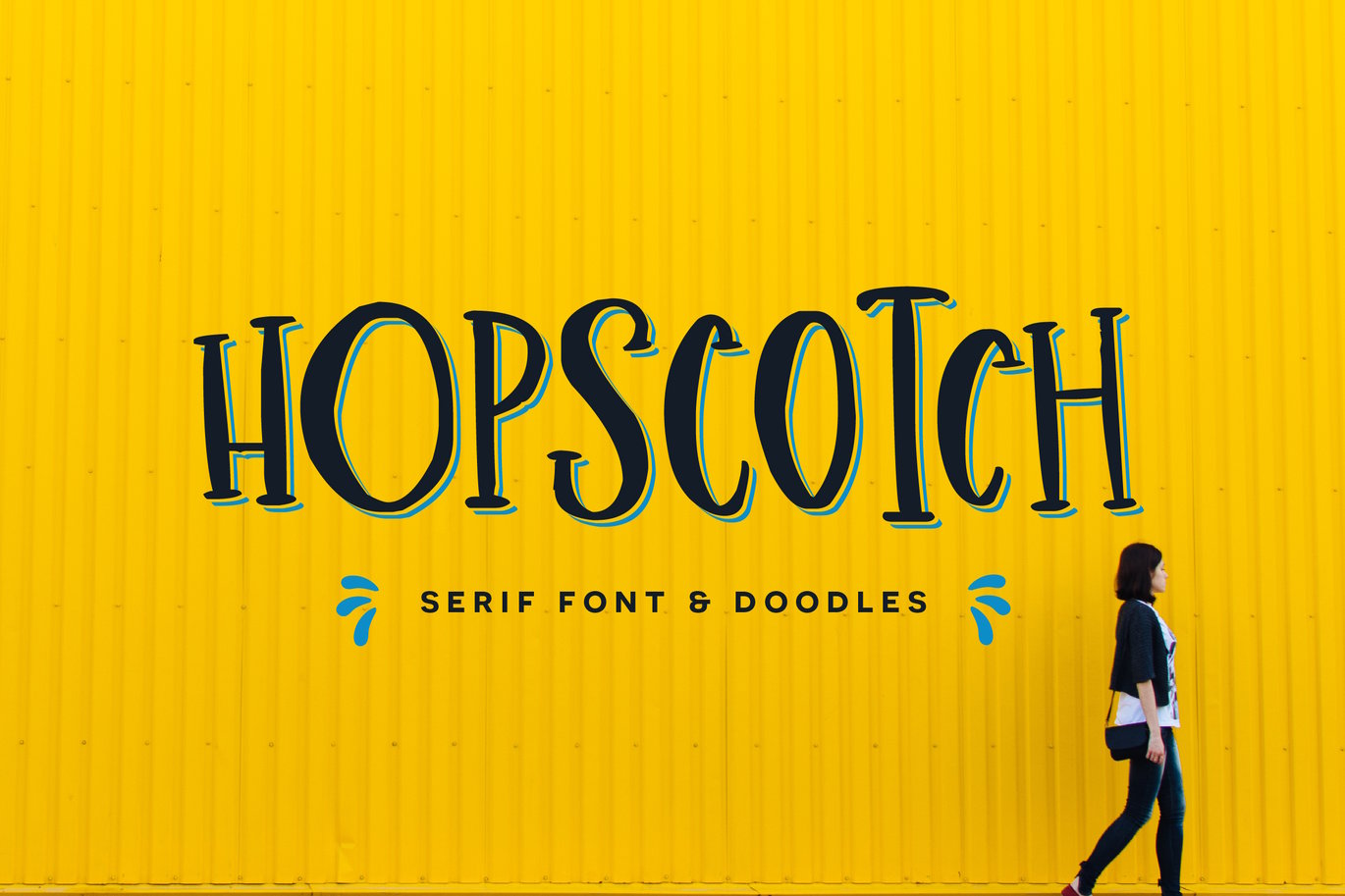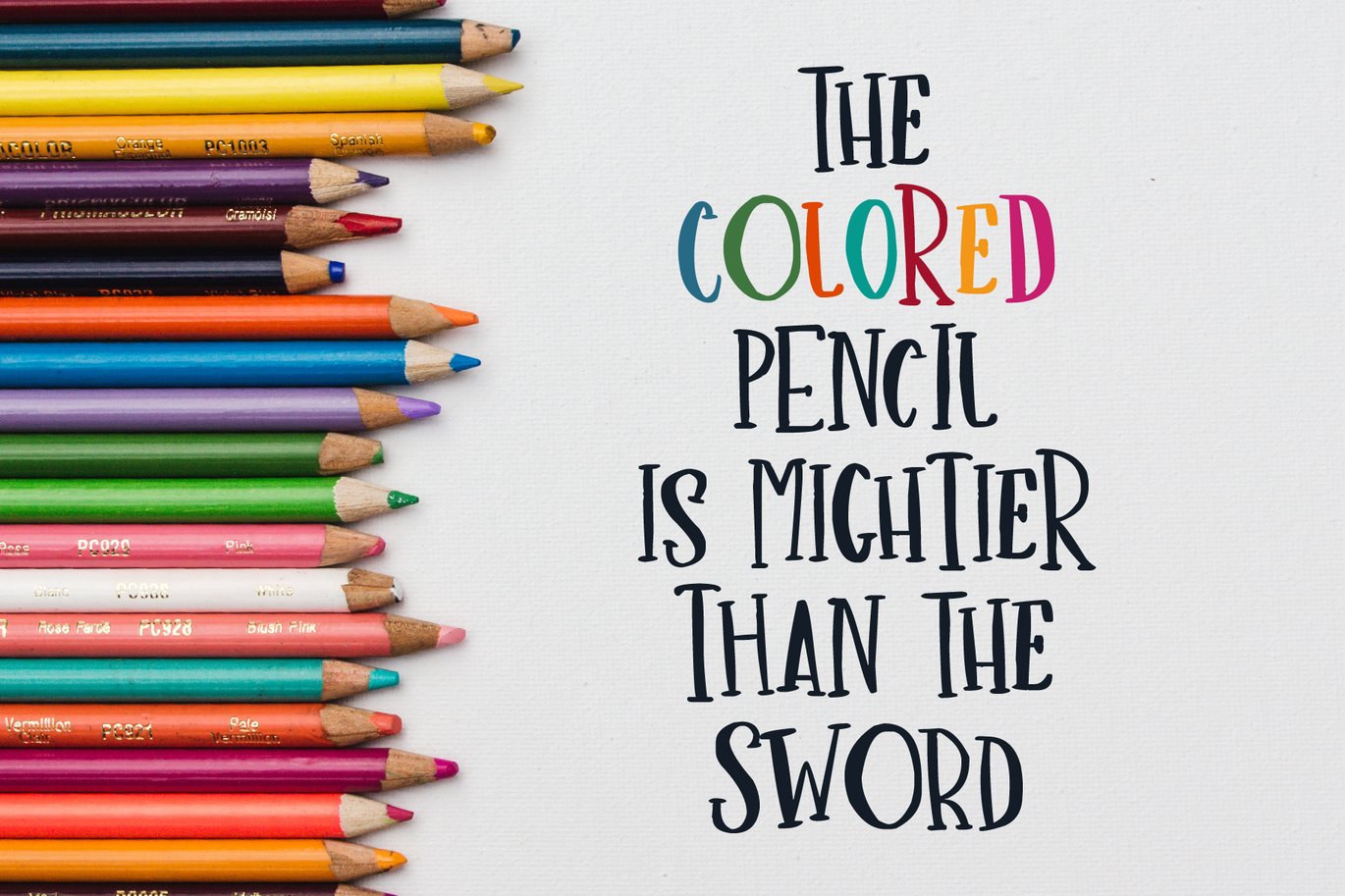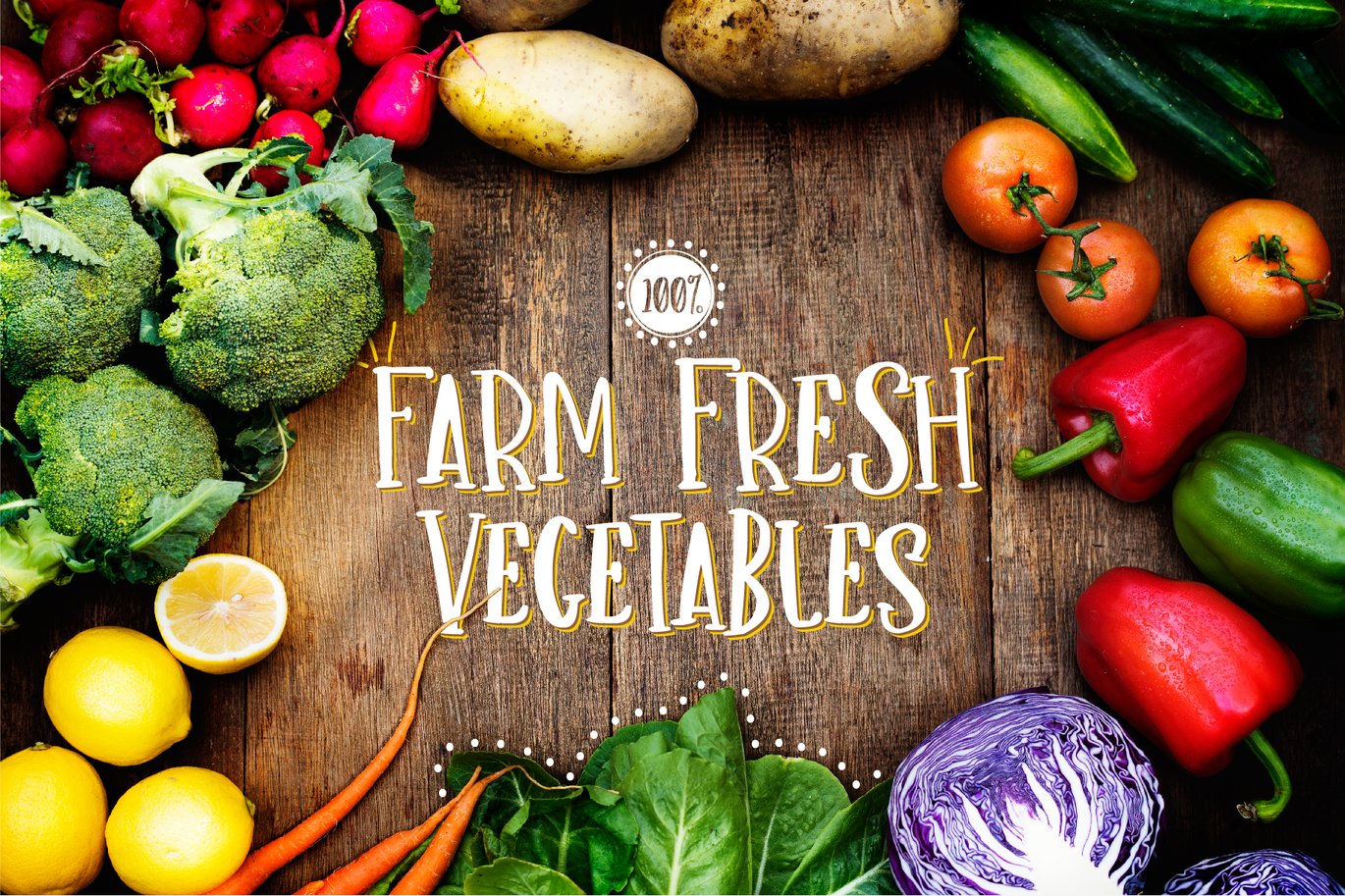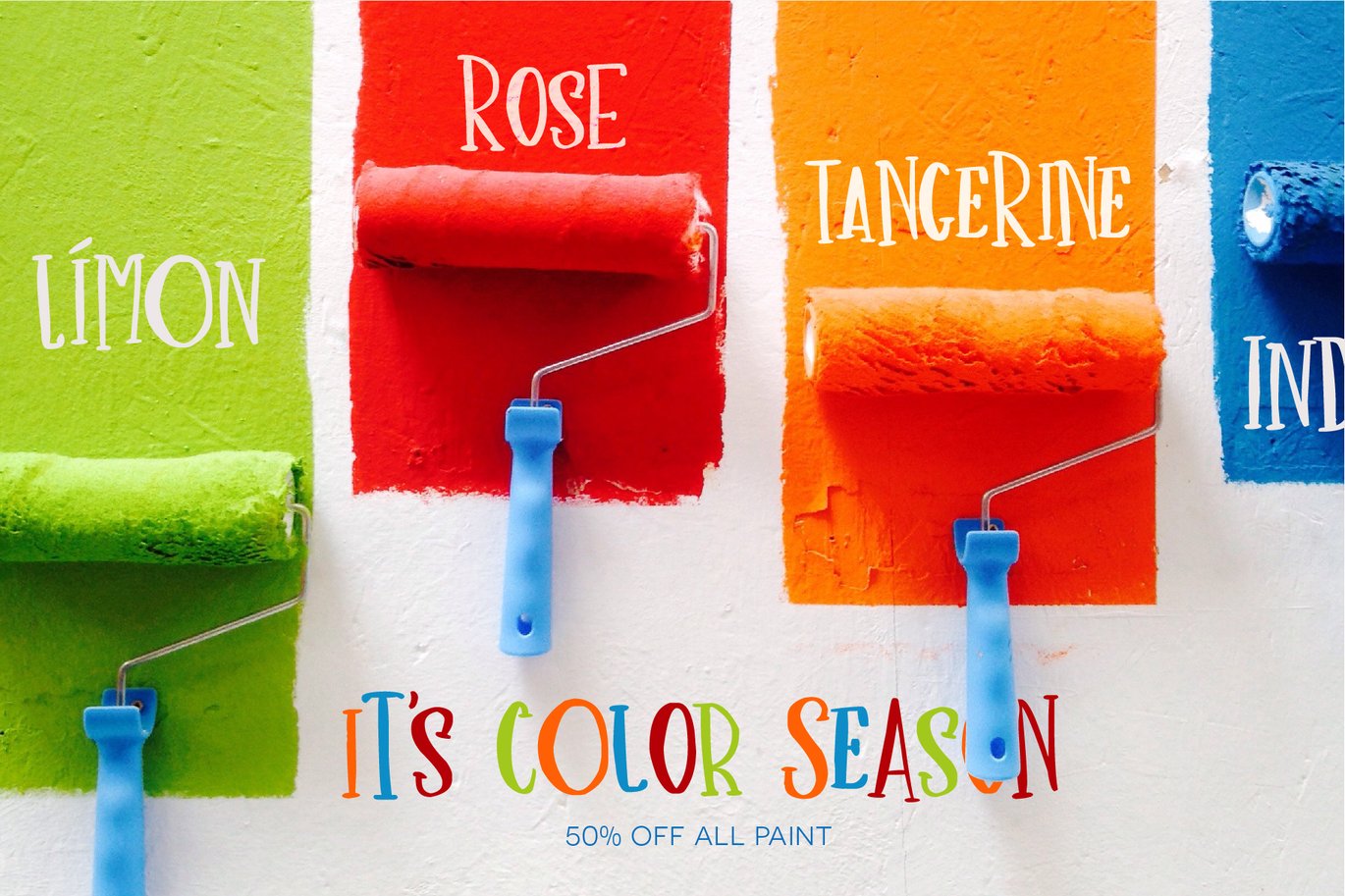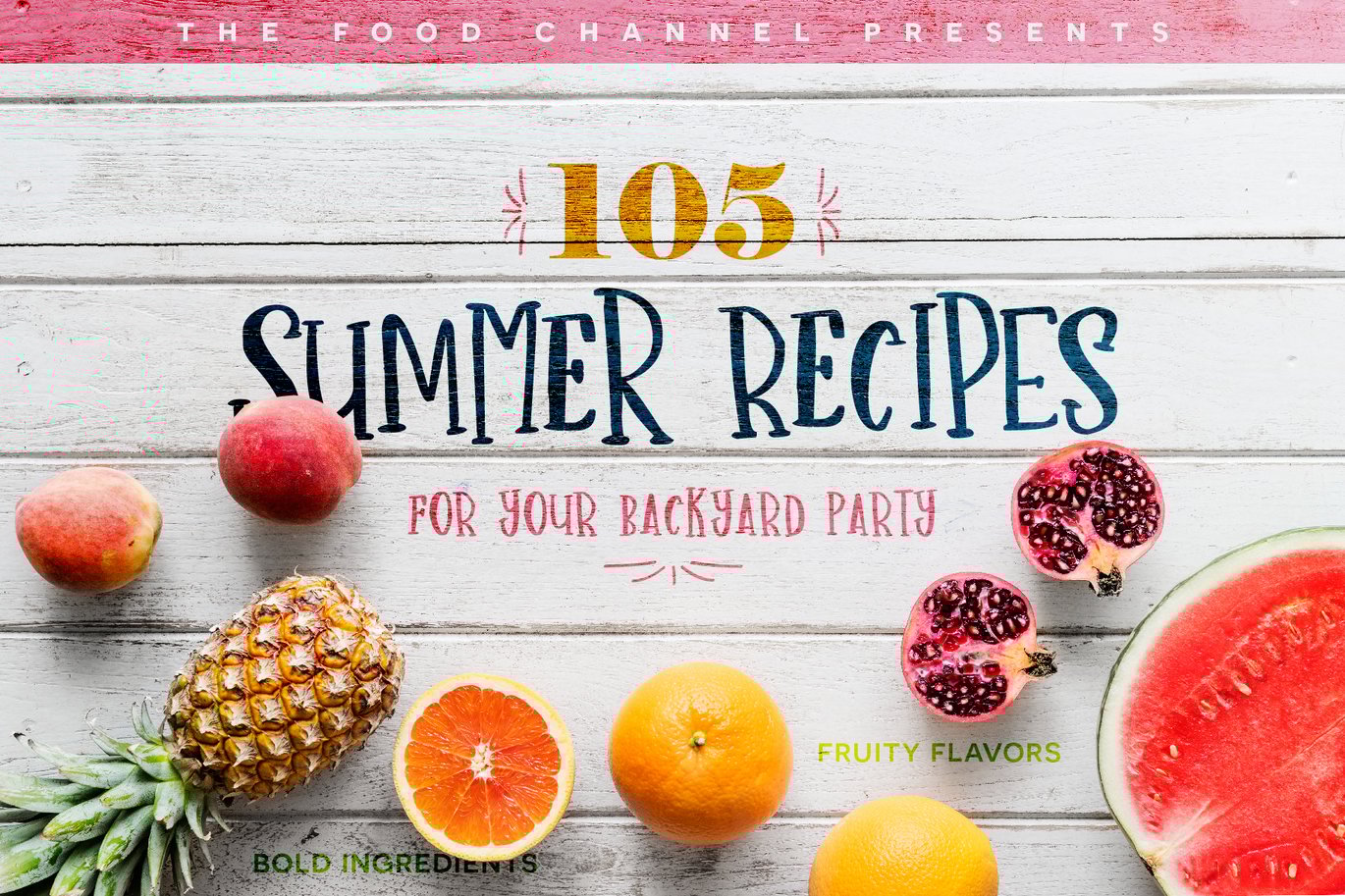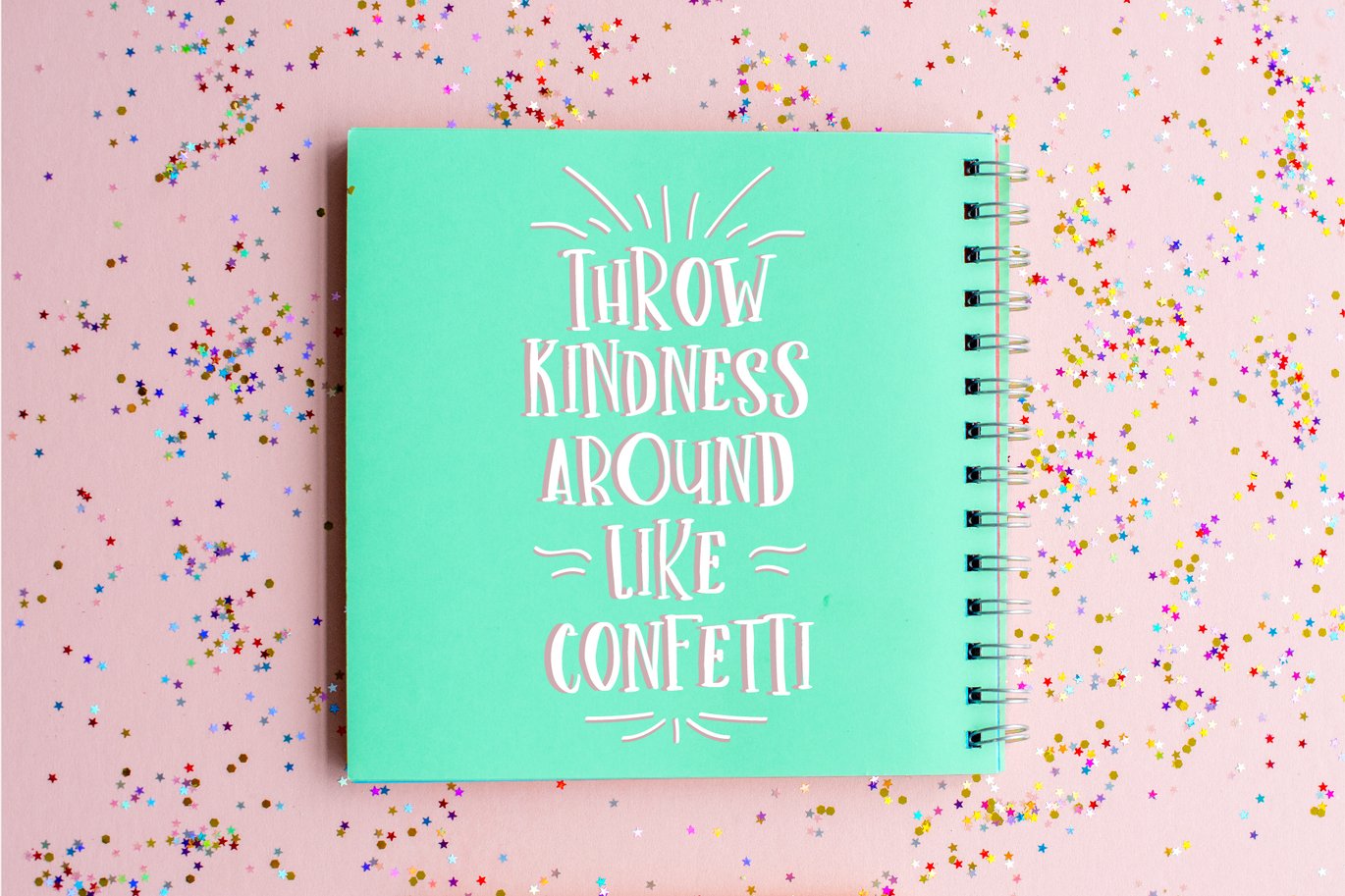
Hopscotch Font
ABOUT HOPSCOTCH
Hopscotch is a perfectly fun summer style font that includes hand written doodles! This adorable serif font has a bouncy baseline and comes with a full set of alternates when you use the capital letters. Perfect for prints, invitations, greeting cards, custom typography,and more!
Wanting to make sure you had everything you needed to make your project complete with that handcrafted feel, I’ve included: